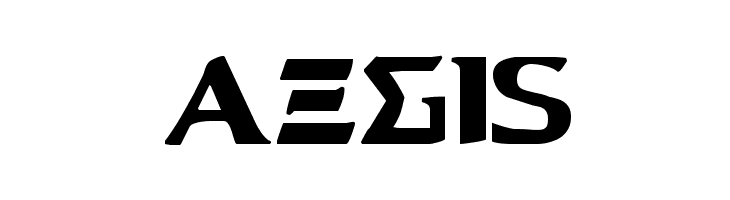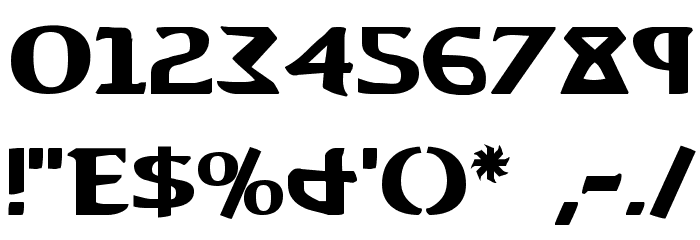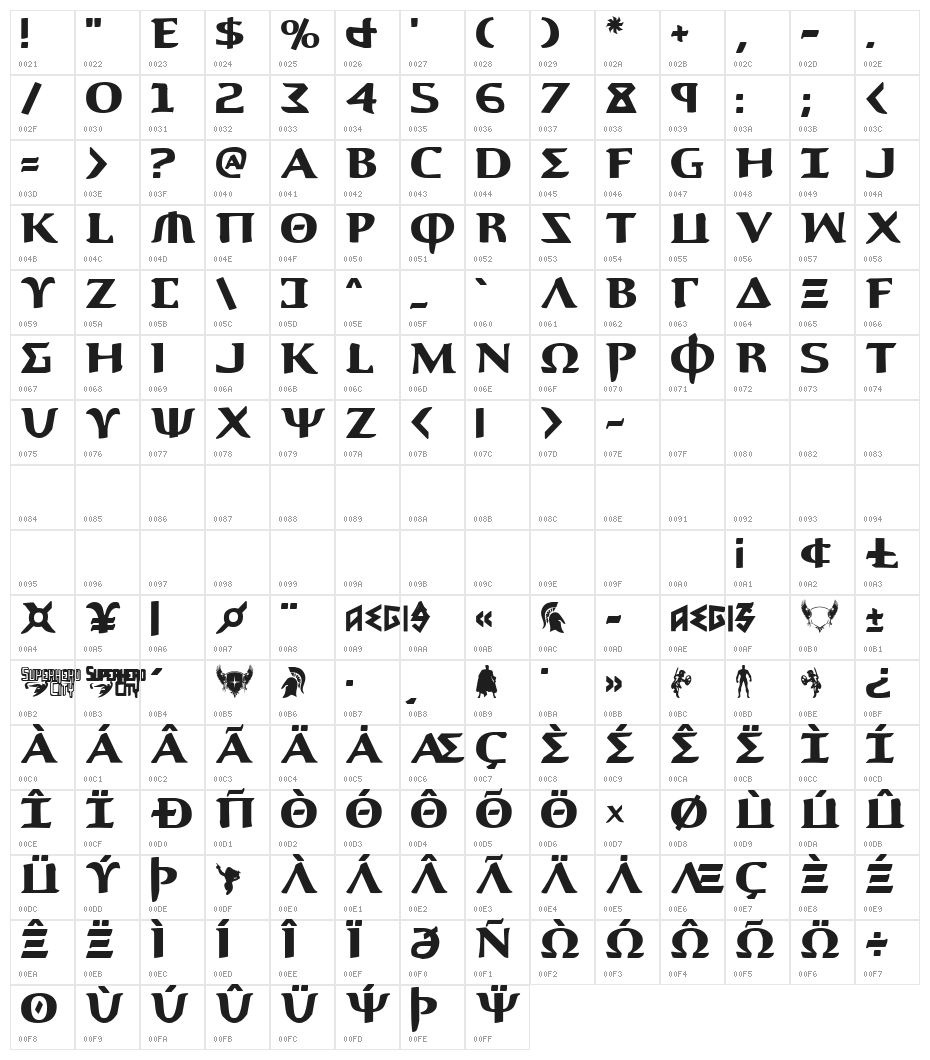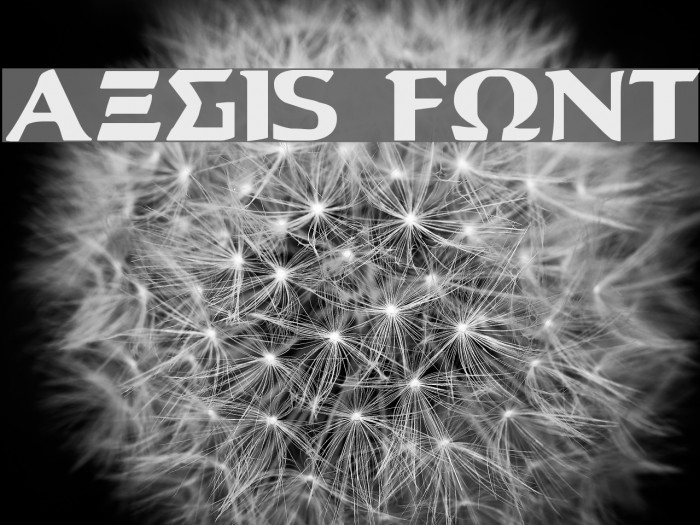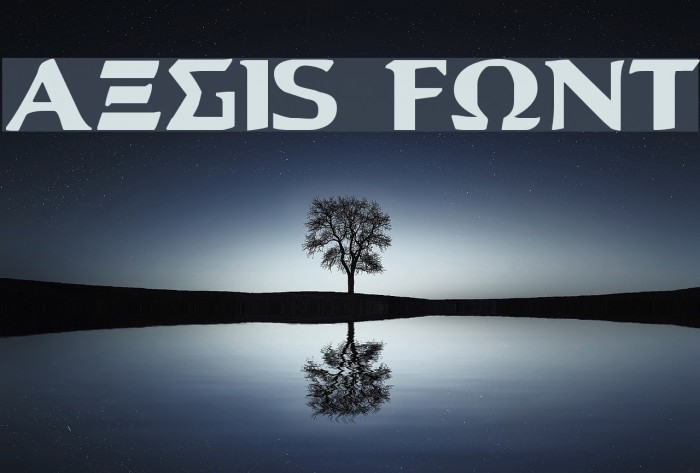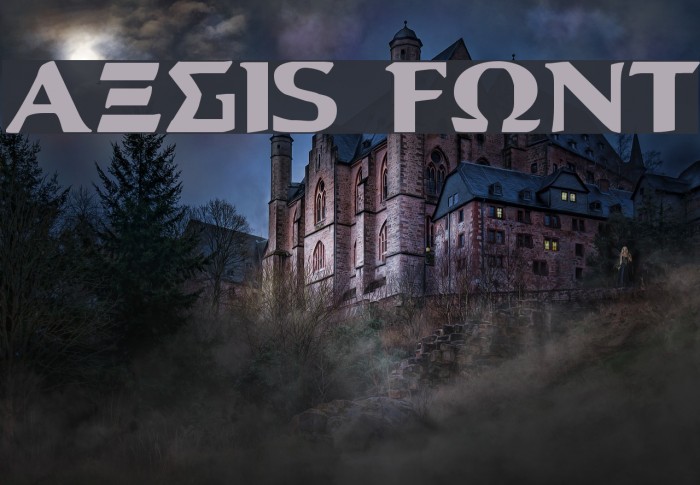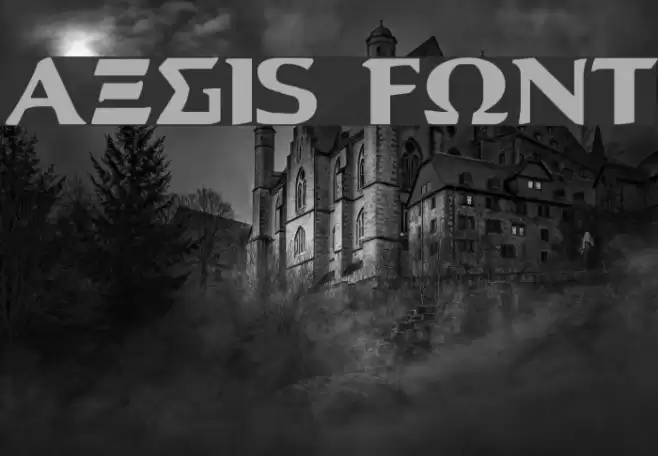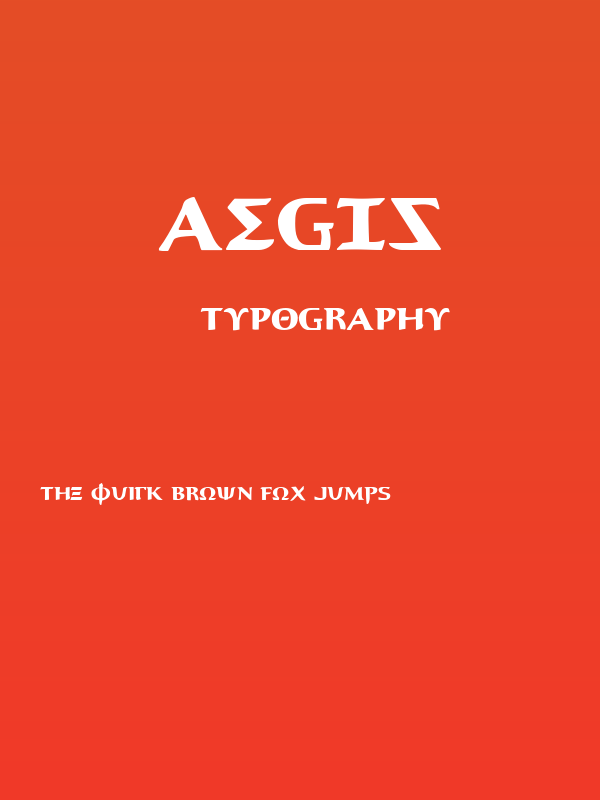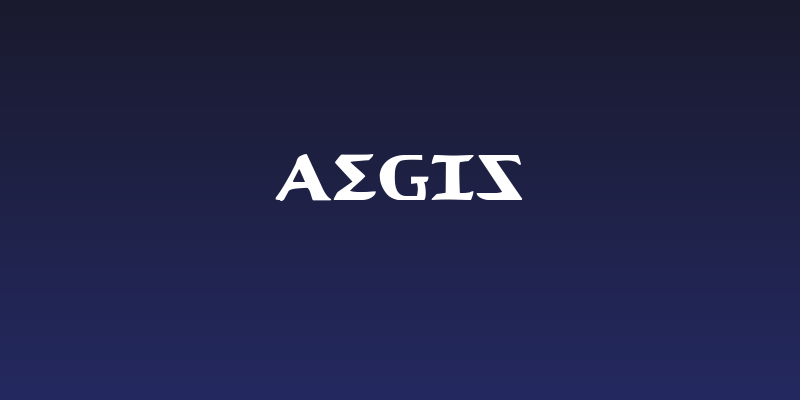
Aegis Font
Aegis Description
This font features a bold and striking design with a strong presence. The characters are crafted with sharp angles and a geometric style, giving it a futuristic and dynamic appearance. The uppercase letters are particularly distinctive, with unique shapes that add a sense of movement and energy. The lowercase letters maintain a consistent style, complementing the uppercase with their angular forms. Numbers and special characters are designed to match the overall aesthetic, ensuring a cohesive look across all text. This font's boldness and unique character shapes make it ideal for projects that require a modern and impactful visual statement.
| Proposed Projects | Ideal for sci-fi themed designs, video game graphics, posters, and branding that requires a modern and edgy look. |